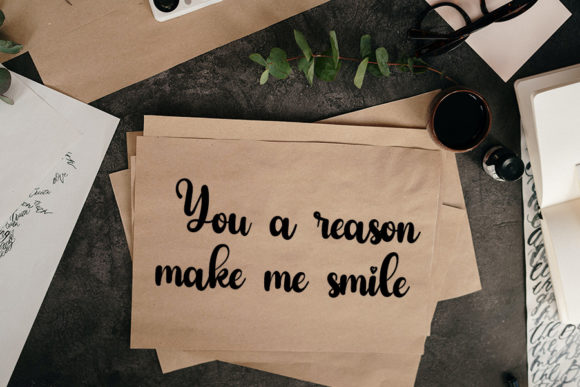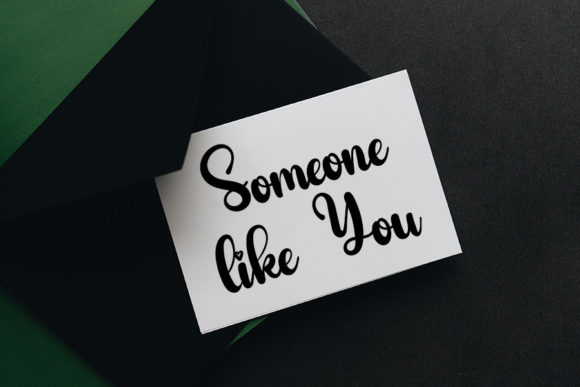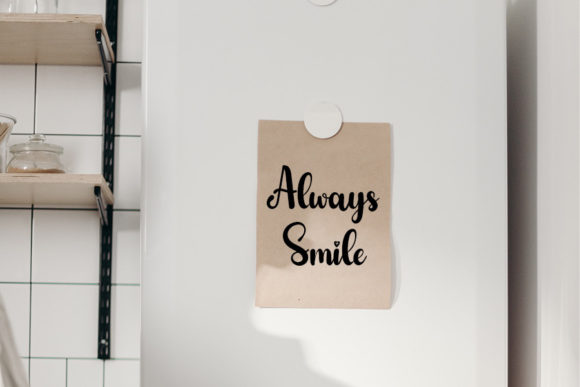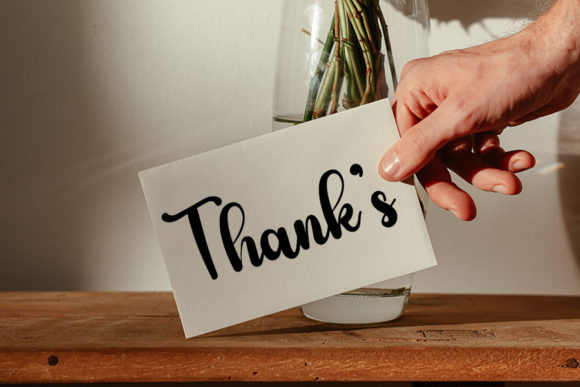
Introduction to Secreet Planner Font
Have you ever been working on a creative project, and the perfect font eludes you? The words are just not coming together, and your design feels flat? I’ve been there too. That’s why I’m excited to share with you a game-changing design resource that will elevate your work: the Secreet Planner Font.
This lovely handwritten font is a masterclass in elegance and sophistication. With its curvy lines and high-quality design, it’s perfect for product packaging, branding projects, magazine covers, social media, weddings, or simply adding a touch of whimsy to your words. Whether you’re a seasoned designer or just starting out, the Secreet Planner Font is a valuable addition to your toolkit.
What sets this font apart is its versatility – it’s just as effective when paired with a transparent background as it is when used to add a pop of color. And the best part? It’s available for free download, making it an accessible design resource for anyone looking to take their creative project to the next level.
Key Features of Secreet Planner Font
- High-quality, professional font design ideal for creative projects, including planners, journals, and organizers.
- Transparent background allows for seamless integration with digital backgrounds and images, giving users flexibility in their design.
- Available in multiple sizes and resolutions, including 300 DPI, to cater to different design needs and preferences.
- Unique characteristics, such as intricate details and stylish lettering, make it a popular design resource among creatives.
- Easy to use and customize, making it an excellent choice for both beginners and experienced designers working on creative projects.
Honest Review: Secreet Planner Font
I recently came across the Secreet Planner Font while searching for design resources for a creative project. I was drawn to its unique aesthetic and decided to give it a try. Overall, I was quite impressed with this free download.
- Unique Design**: The Secreet Planner Font has a distinct and quirky design that sets it apart from other fonts. I loved the eclectic feel it brought to my project.
- High Quality**: The font is well-crafted and scalable, making it perfect for both digital and print projects.
- Transparent Background**: The transparent background option allows for seamless integration with other design elements.
- Limited Character Set**: The Secreet Planner Font only comes with a limited character set, which may not be suitable for projects requiring extensive text.
- Not Ideal for Large Text**: Due to its quirky design, the font may not be the best choice for large text or headlines.
Overall, I was pleased with the Secreet Planner Font and would recommend it for smaller projects or designs where a unique aesthetic is desired. However, it may not be the best choice for large-scale or text-heavy projects.
Getting the Most Out of Secreet Planner Font
For optimal results, use the Secreet Planner Font in conjunction with other design elements to create a visually appealing and cohesive design.
The Secreet Planner Font is ideal for various creative projects, including:
– Planners and organizers
– Digital art and illustrations
– Branding and marketing materials
– Educational resources and presentations